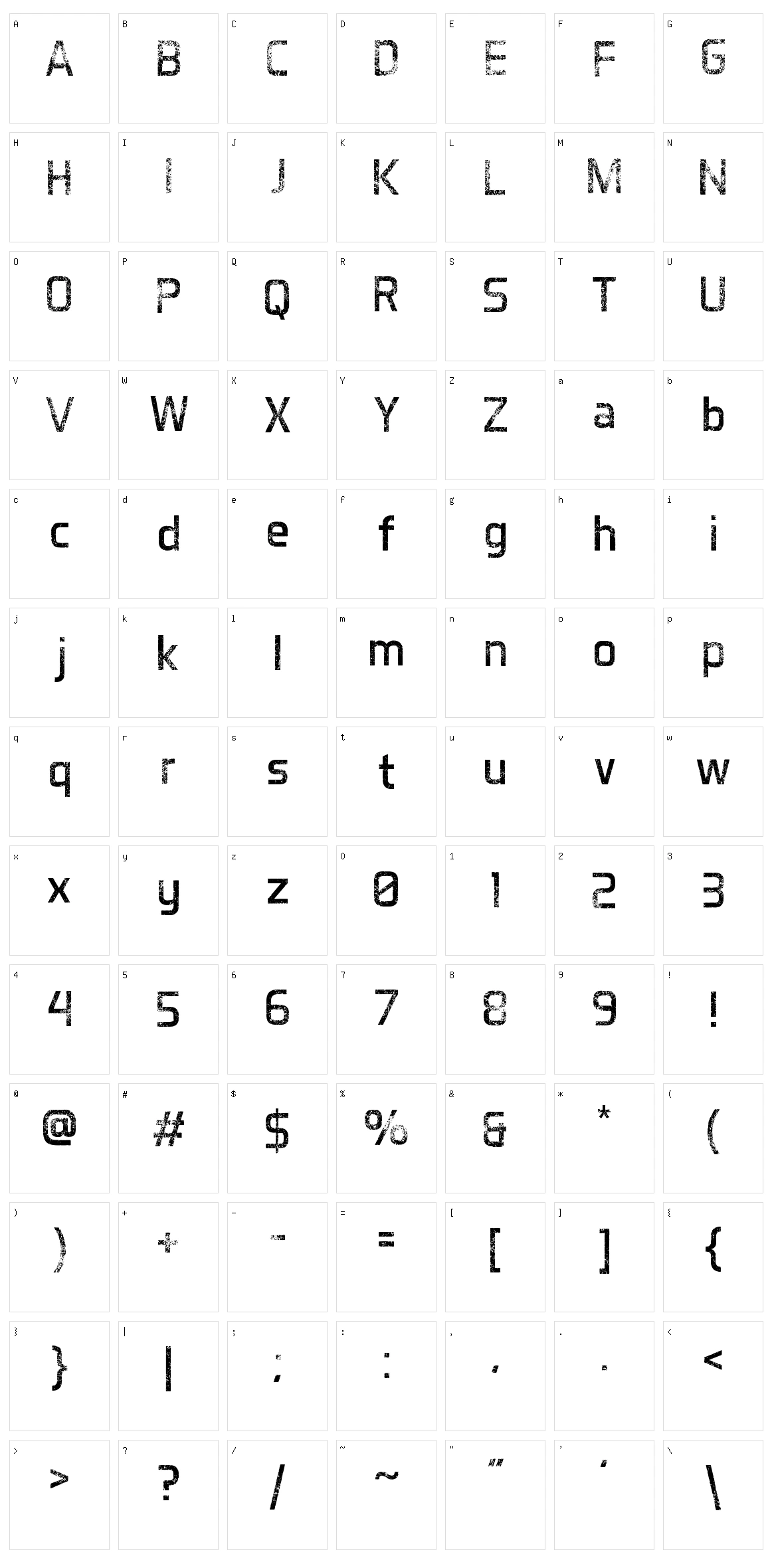
The free font Destroyed Aero is carefully designed by Jayvee Enaguas, showcasing a thoughtful balance of creativity and usability and falls under the Eroded font style. When you download the ZIP file, it contains only 138.35 KB of font files, making it lightweight and quick to download. Please review the license details below to understand permitted usage and distribution rights. If license information is not available, we recommend using this font for personal projects only or contacting the author directly for commercial usage permissions.